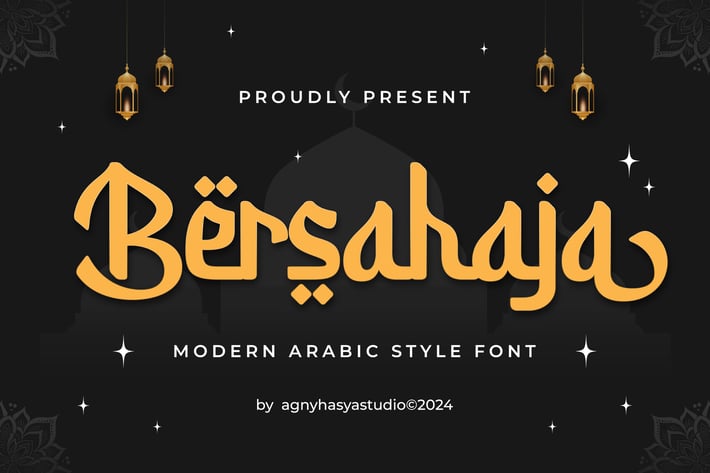
Bersahaja - Modern Arabic Style Font
Introducing Bersahaja Is a Modern Islamic and Arabic-Style Display Typeface That Is Perfect for Islamic Event Design Projects, Especially During Ramadan.\
This Typeface Comes With Unique Alternates and Ligatures, Allowing You to Experiment With Character Styles, Resulting in Visually Interesting and Cool Typography.
It Also Supports Multilingual Characters, Making It Perfect for Use in Various Languages.
It's Perfect for Design Projects Such as Logos, Advertising, Branding, Posters, Banners, Product Designs, Art Quotes, Special Events, Product Packaging, and More.